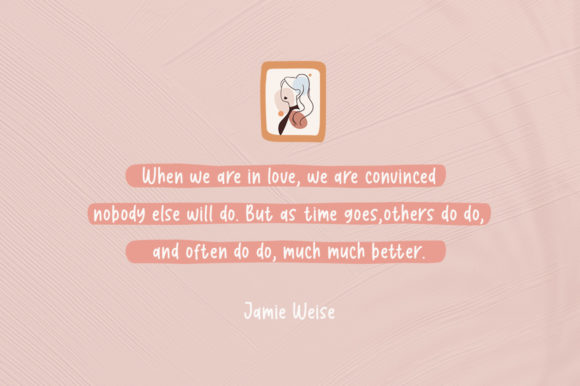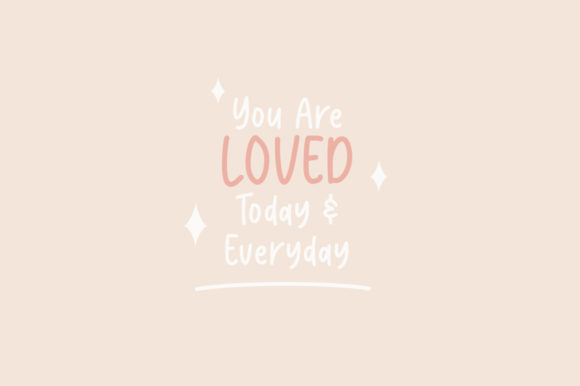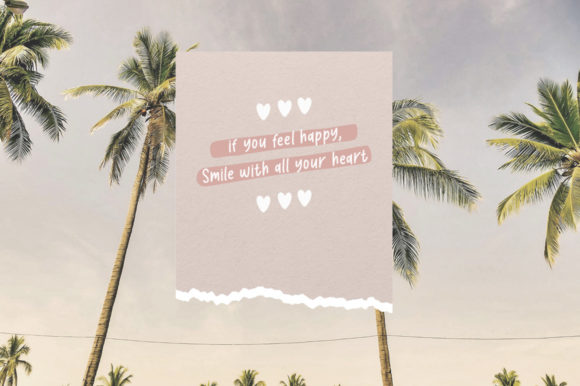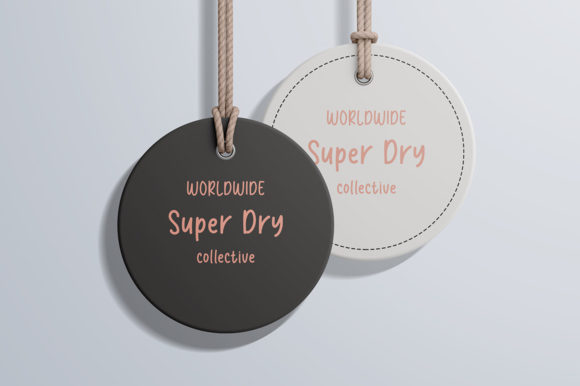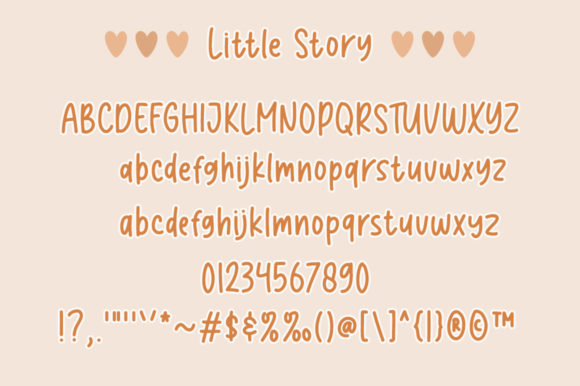
Little Story Font
About Little Story Font
Little Story is a delightful handwritten font that brings a touch of sweetness and quirkiness to your designs. With its natural and unique style, this font is incredibly versatile and suitable for a wide range of creative projects.
The friendly and approachable nature of Little Story makes it a perfect choice for various design applications. Whether you’re working on greeting cards, invitations, social media graphics, branding materials, or any other project, Little Story adds a delightful and welcoming vibe.
The handwritten quality of Little Story adds an authentic and personal feel to your text. Each letter is carefully crafted with attention to detail, resulting in a font that feels warm and inviting. The organic flow of the characters adds a sense of playfulness and charm, making your designs feel more personal and relatable.
Little Story encourages imagination and creativity. Its unique style opens up a world of possibilities, allowing you to experiment with different layouts, color combinations, and design elements. Let your imagination run wild and create designs that are truly one-of-a-kind.
Whether you’re creating a logo, designing stationery, crafting handwritten quotes, or adding a personal touch to your digital creations, Little Story brings a sense of authenticity and charm to your projects. Its friendly and natural style resonates with people, making your designs more relatable and engaging.
In conclusion, Little Story is a sweet, quirky, and friendly handwritten font that adds a personal and welcoming touch to your designs. Its natural and unique style makes it suitable for a wide range of projects, and its versatility allows you to explore different design possibilities. Embrace the charm of Little Story and let it inspire your creativity to new heights.